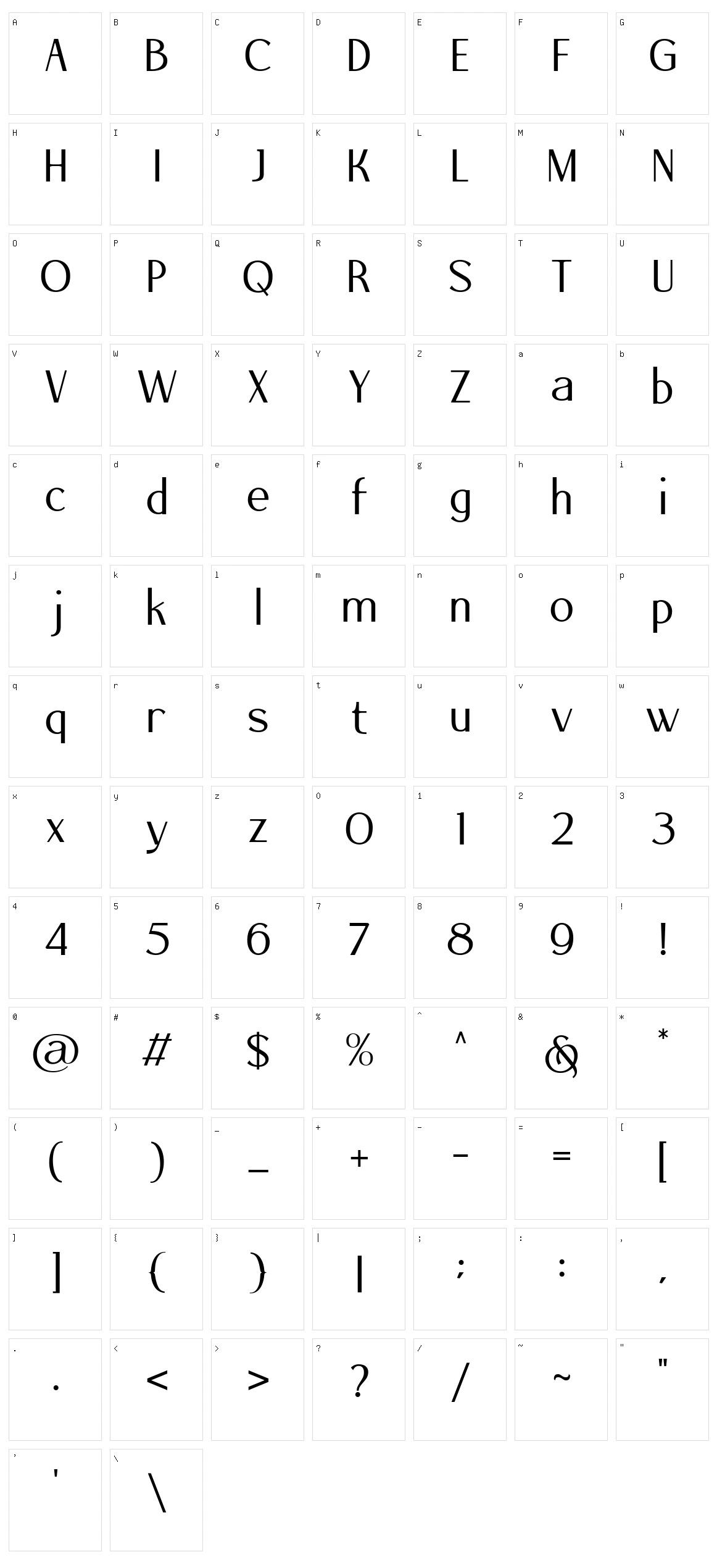
The free font Qedysans is carefully designed by Alit Design, showcasing a thoughtful balance of creativity and usability and falls under the Sans serif font style. When you download the ZIP file, it contains only 143.38 KB of font files, making it lightweight and quick to download. Please review the license details below to understand permitted usage and distribution rights. If license information is not available, we recommend using this font for personal projects only or contacting the author directly for commercial usage permissions.